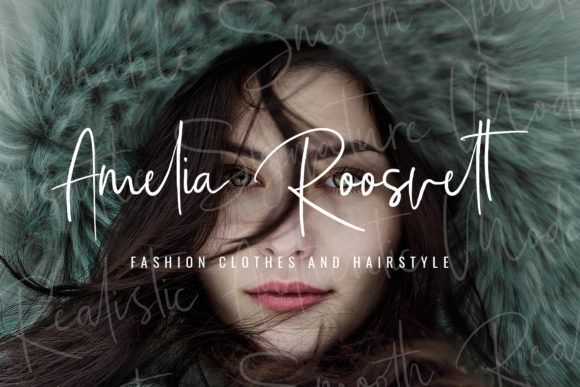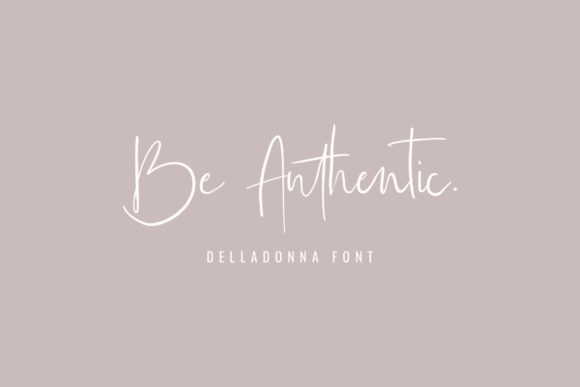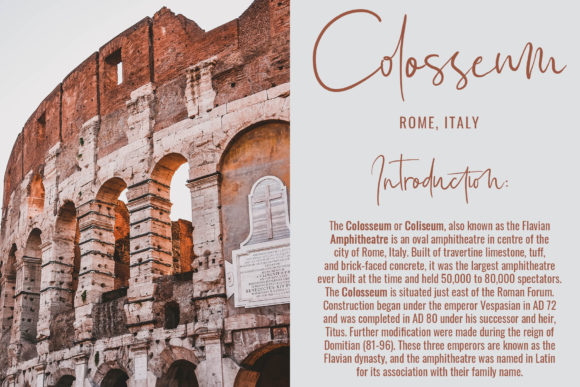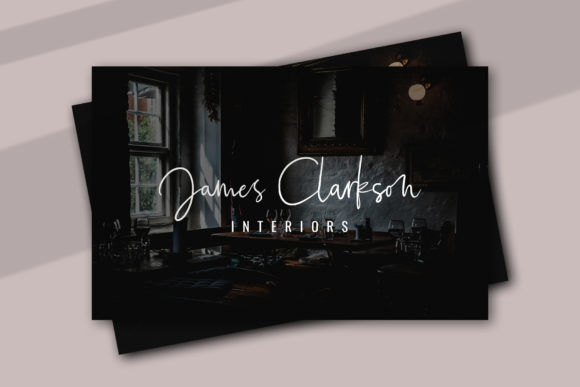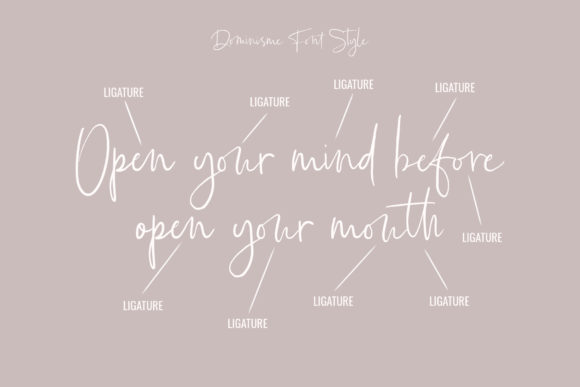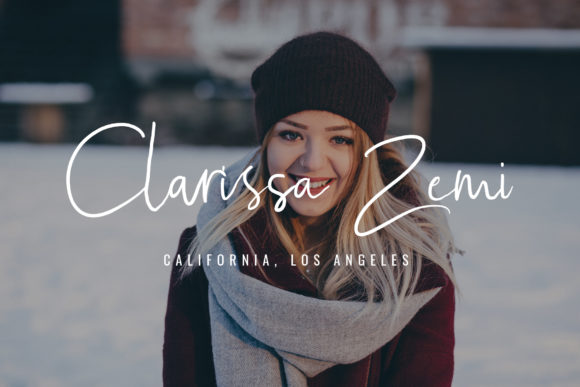
Introduction to Dominisme Font
Dominisme is inspired by classic typography and brings its own unique style to any design project.
This fantastic handwritten font is best suited for headlines of all sizes, as well as for blocks of text that have both maximum and minimum variations Whether itโs for web, print, moving images or anything else โ Dominisme will look spectacular.
Key Features of Dominisme Font
Why Choose Dominisme Font?